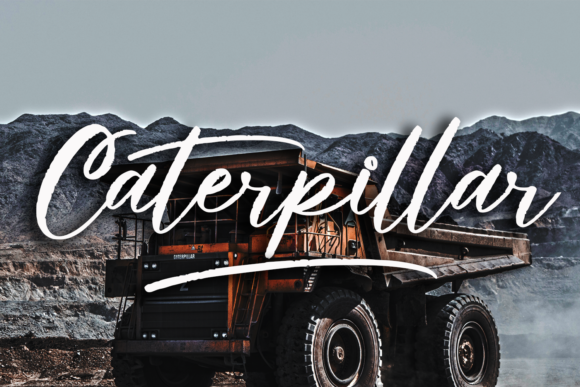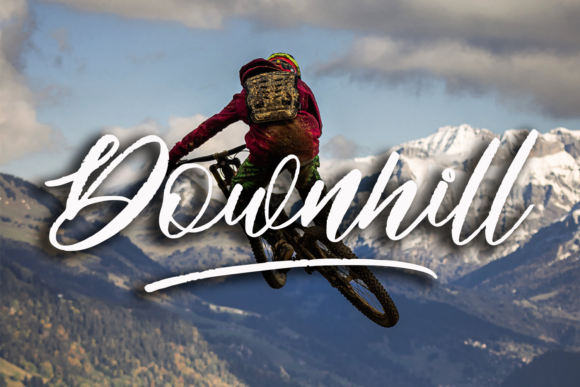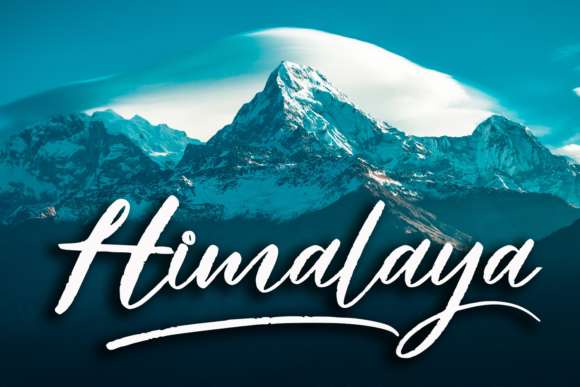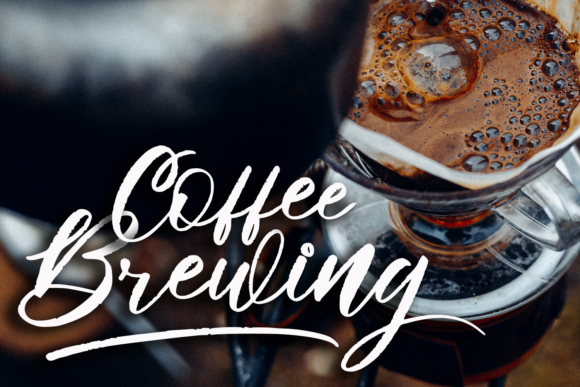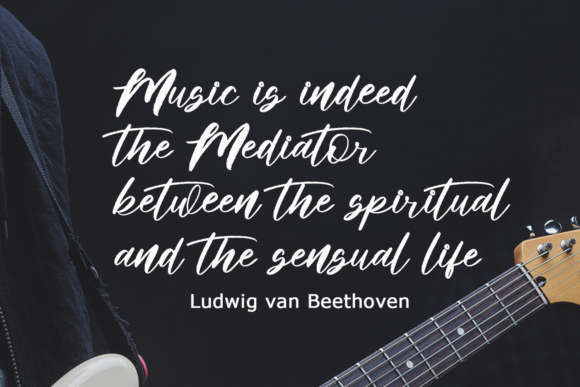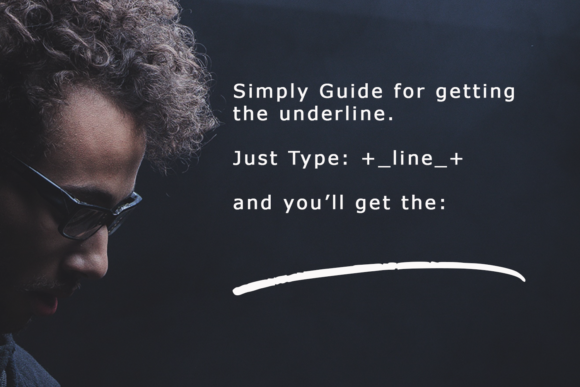
Introduction to Rytthm Font
As a designer, have you ever found yourself staring at a blank canvas, waiting for the perfect idea to strike? For many of us, it’s those fleeting moments of inspiration that spark the most creative projects. One such moment led me to discover the Rytthm Font – a true masterpiece of handwritten typography. Its delicate yet powerful strokes evoke a sense of elegance and sophistication, making it an instant favorite among designers.
With its high-quality design and versatility, Rytthm Font has become a go-to resource for creating eye-catching logos, branding, and quotes. Whether you’re working on a wedding invitation, thank-you card, or business card, this font is sure to add a touch of handwritten charm. And the best part? It’s available for free download, making it a valuable addition to any designer’s toolkit.
From transparent backgrounds to seamless integration with other design elements, Rytthm Font is a true design resource. Its timeless appeal and wide range of applications make it an invaluable asset for any creative project. In this article, we’ll delve into the world of Rytthm Font and explore its many uses, so you can unlock its full potential and take your designs to the next level.
Key Features of Rytthm Font
- Unique characteristics include its modern and sleek design, perfect for branding and advertising materials.
- Designed to be versatile and adaptable, the Rytthm Font is suitable for a wide range of design applications.
Honest Review: Rytthm Font
I recently stumbled upon the Rytthm Font, and I must say it’s been a game-changer for my creative projects. ✨ The font’s unique blend of modern and vintage elements makes it perfect for anything from fashion to music-related designs.
One of the standout features of the Rytthm Font is its high quality. The font is crisp, clean, and has a transparent background, making it easy to integrate into any design. Plus, it’s a free download, which is a major bonus for designers on a budget.
Here are some of the things that work well with the Rytthm Font:
- Unique and versatile design
- High-quality typography
However, I do have a few limitations to mention:
- May not be suitable for very formal or traditional designs
- Limited character set (no support for certain languages)
Overall, I’m really impressed with the Rytthm Font. It’s a fantastic design resource that’s perfect for creative projects. With its unique design and high-quality typography, it’s definitely worth checking out.
Tips for Getting the Most Out of Rytthm Font
For optimal results, use Rytthm Font in conjunction with other high-quality design resources. Experiment with different font sizes, colors, and styles to find the perfect combination for your creative project. You can also use the Rytthm Font in conjunction with a free download of a design template to get started quickly.
The Rytthm Font is perfect for a wide range of creative projects, including logos, business cards, brochures, and presentations. Its high-quality design and transparent background feature make it easy to use in various design projects. You can also use the Rytthm Font to create visually appealing graphics for social media, websites, and other online platforms.